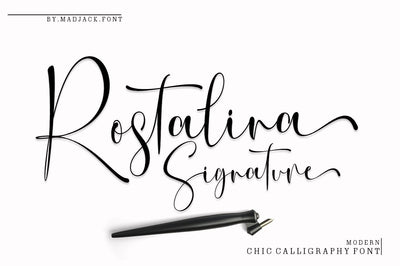
Rostalina Signature Script
Rostalina Signature is a unique, elegant and modern handwritten font. which looks like a signature, this font is intentionally made with unique and alternating ligatures. This handcrafted style makes it perfect for use in all your design projects be it logos, labels, packaging designs, blog titles, posters, wedding designs, social media posts, Instagram designs, etc.